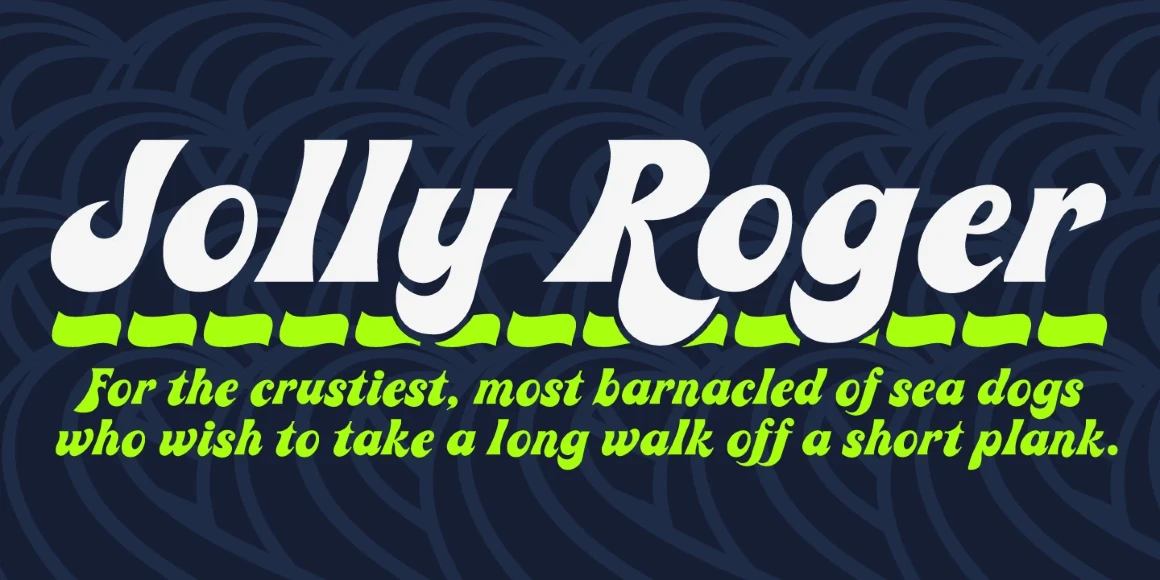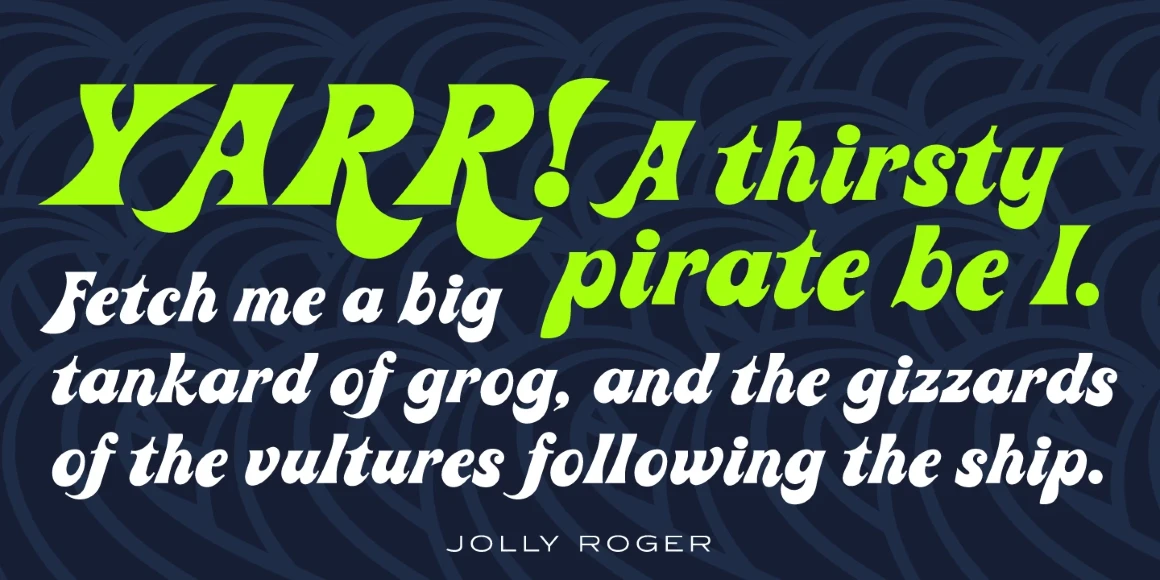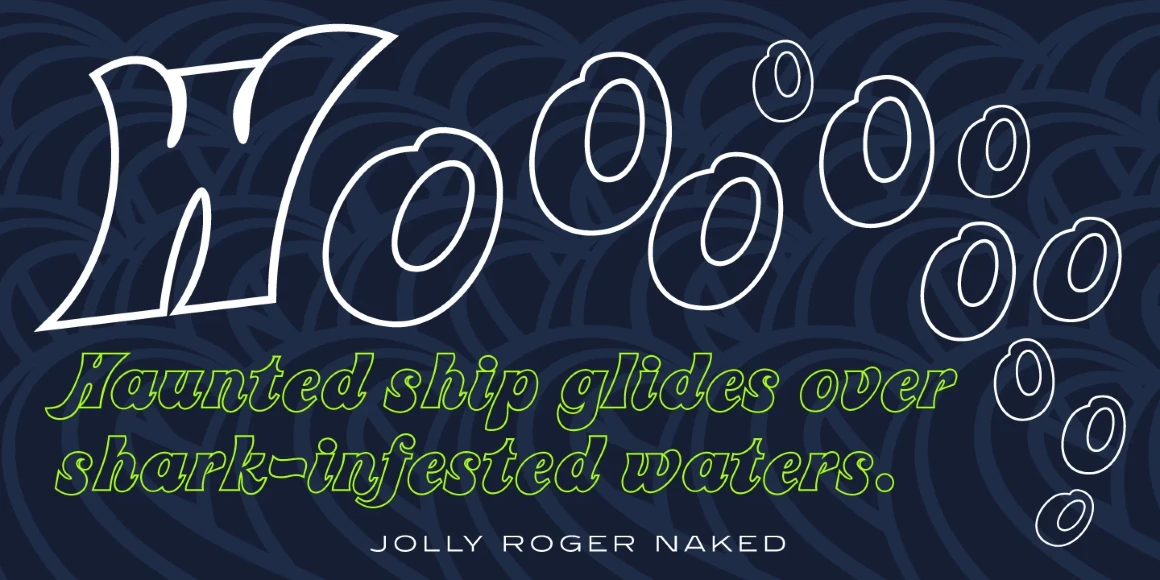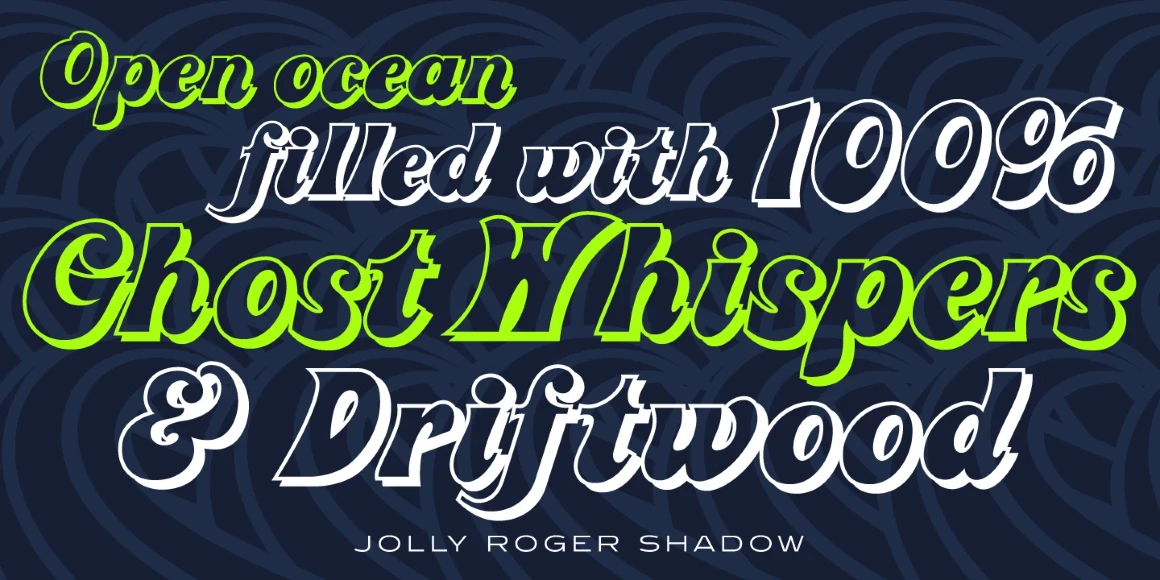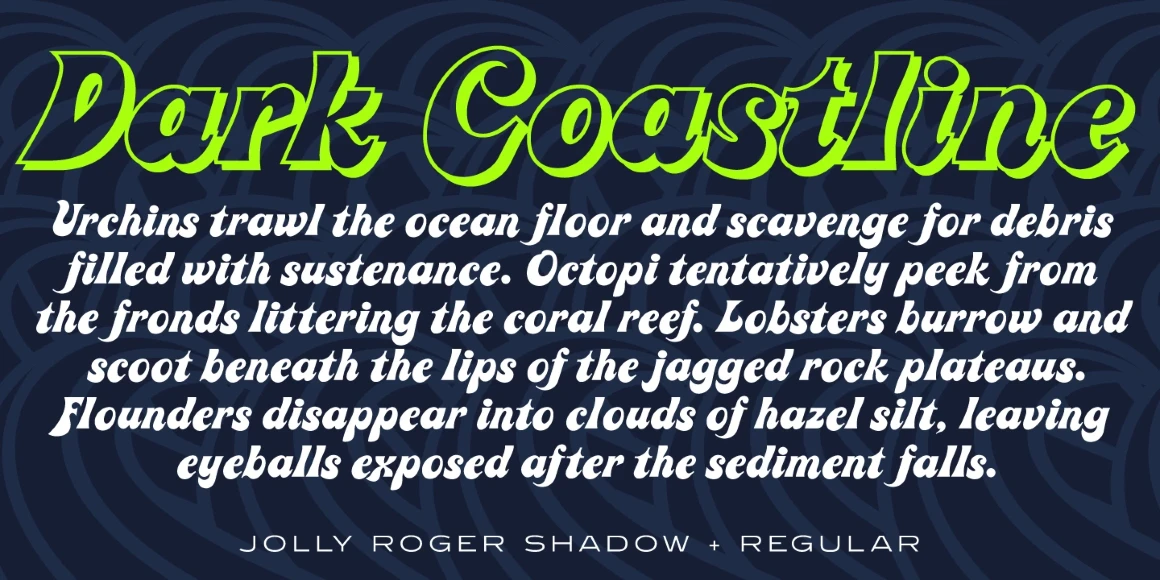
Jolly Roger
Jolly Roger is a decorative font family with a hint of script influences. The original design was created in 1970 by the legendary American type designer Phil Martin, founder and creator of Alphabet Innovations and TypeSpectra. Phil describes Jolly Roger, a quirky, playful, and highly unusual font family, as his personal favorite out of his entire library of over 400 typefaces. International TypeFounders exclusively licensed the family from Phil, and Steve Jackaman (ITF) refined and optimized the family for digital release in 2003. “We are proud and humbled to reintroduce the design in honor of our good friend and late colleague,” says Jackaman.